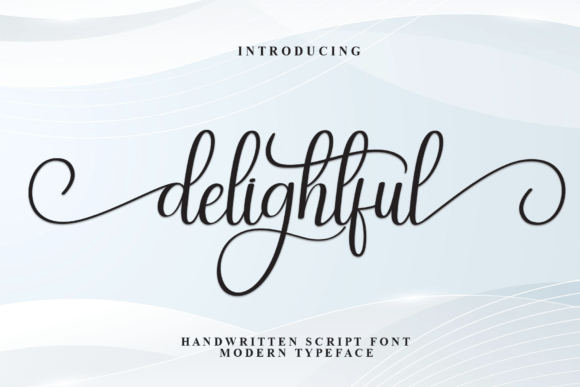
Enter Delightful Font, the perfect companion for designers seeking to add a dash of whimsy and elegance to their projects. This charming font is designed to bring a splash of fun to wedding invitations, greeting cards, and any other designs that require a touch of personality. With its unique balance of playfulness and sophistication, Delightful Font is the ideal choice for adding a delightful twist to your creative work.
Delightful Font Key Features
- Character Set: The font includes a wide range of characters, including Latin, Cyrillic, and Greek alphabets, as well as punctuation marks, numbers, and symbols.
- Unique Characteristics: Delightful Font features a distinctive, hand-drawn design with subtle flair and texture, making it ideal for creative projects and branding materials.
- Font Styles: The font family includes 5 font styles: Regular, Italic, Bold, Bold Italic, and Outline, providing users with flexibility and versatility in their design choices.
- Scalability: Delightful Font is designed to be highly scalable, ensuring that it remains legible and visually appealing at various sizes and resolutions, from small text to large headings.
Delightful Font Review
Overall, I think the Delightful Font is a solid choice for any design project. ✨ It’s modern, yet timeless, making it easy to incorporate into various design themes.
The font’s versatility shines through in its multiple weights and styles, allowing designers to create a range of visual effects. ✨ The clean lines and rounded edges give the font a friendly, approachable feel, perfect for branding and typography-heavy designs.
While the Delightful Font has its strengths, it does have a few limitations. ⚠️ The font’s small caps and punctuation marks may not be as polished as other fonts in the same category. Additionally, some users may find the font’s x-height to be slightly too large, which can affect readability in certain contexts.
Despite its limitations, I believe the Delightful Font is a great addition to any designer’s toolkit. It’s easy to use, versatile, and visually appealing. With a bit of creativity and attention to detail, designers can overcome the font’s limitations and create stunning designs that showcase its unique charm.
Recommendations
- Use the font in moderation, especially in small text sizes, to avoid readability issues.
- Experiment with different weights and styles to create visual interest and depth.
- Pair the font with other complementary fonts to create a balanced and harmonious design.
To get the most out of Delightful Font, use it for:
- Creating elegant and sophisticated designs.
- Adding a touch of whimsy and playfulness to your designs.
- Highlighting important information or creating visual hierarchies.
Remember to pair Delightful Font with other complementary fonts to create a harmonious design.
Alternatives to Delightful Font
Great Vibes is a beautiful, elegant script font that is perfect for creating a sense of luxury and sophistication. It is ideal for use in branding, advertising, and editorial design. Compared to Delightful Font, Great Vibes has a more refined and classic feel, making it suitable for high-end designs.
Pacifico is a modern script font with a relaxed and casual vibe. It is great for use in digital design, such as websites, social media, and mobile apps. Compared to Delightful Font, Pacifico has a more laid-back and friendly feel, making it perfect for designs that require a sense of approachability.